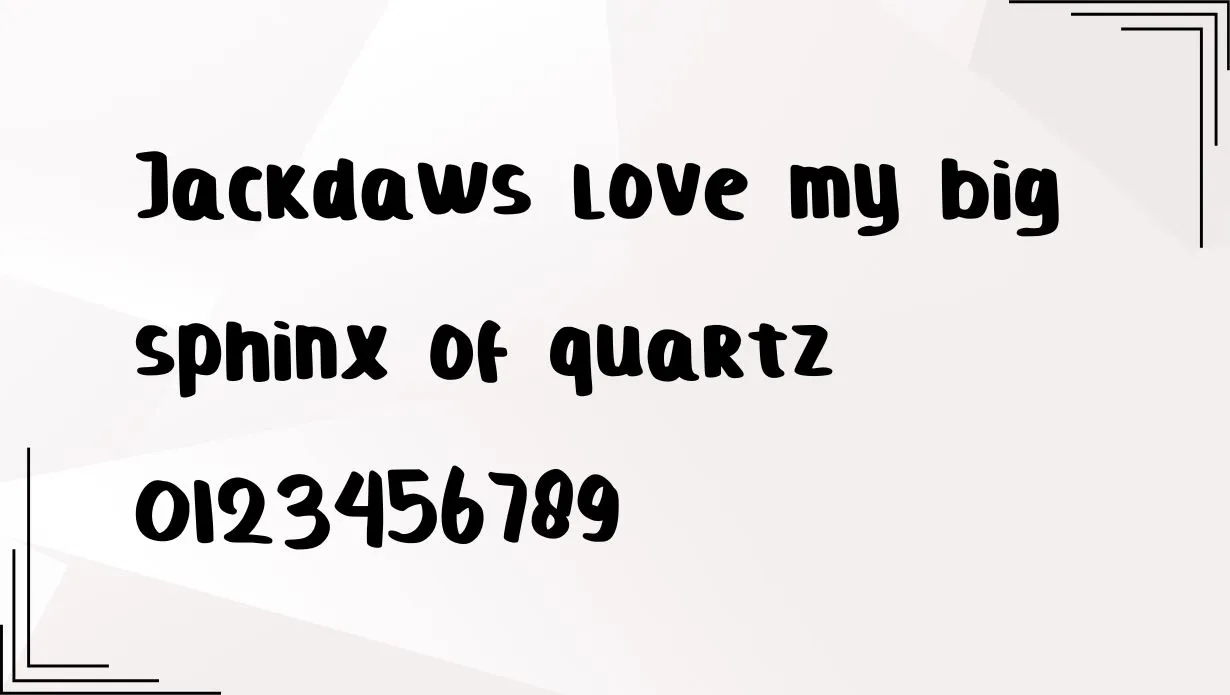
Alloha Font is a stylish, whimsical, and modern display font. This font is designed by a famous Typeface designer Team called VulType Co.
The font contains capital and small letters, numbers, special characters, and a few punctuation marks. This font is also cooperative with many programs like Adobe Photoshop, InDesign, Illustrator, MS Office, Canva, Figma, etc. This font is a handwritten font that looks wonderful on any design piece perfectly.
Most graphic designers use this beautiful script font to make designs on Canva like social media post creation, giving captions to the posts, and many more.
Due to its unique cuts and design, this font is most commonly used in animated cartoon series titles, subtitles, posters, brochures, banners, flyers, billboards, etc.
Due to its bold design, it gets perfectly fits any size of design and it can be used to make billboards and small brochures also. If you want to combine this font with any other typeface, then you have to pair it with soleil font.
This font is a favorite font for website designers as it is the most easy-to-use and easy-to-read font for users. Most website designers prefer this font. This font is also used to write storybook covers, title pages, etc.
Alloha Font Family Appearance
| Style | Script |
Is Alloha Font useful for writing cartoon / animated series titles?
Due to the fancy and modish design, this font is highly recommended to be used to make any type of cartoon movie or animated series titles.